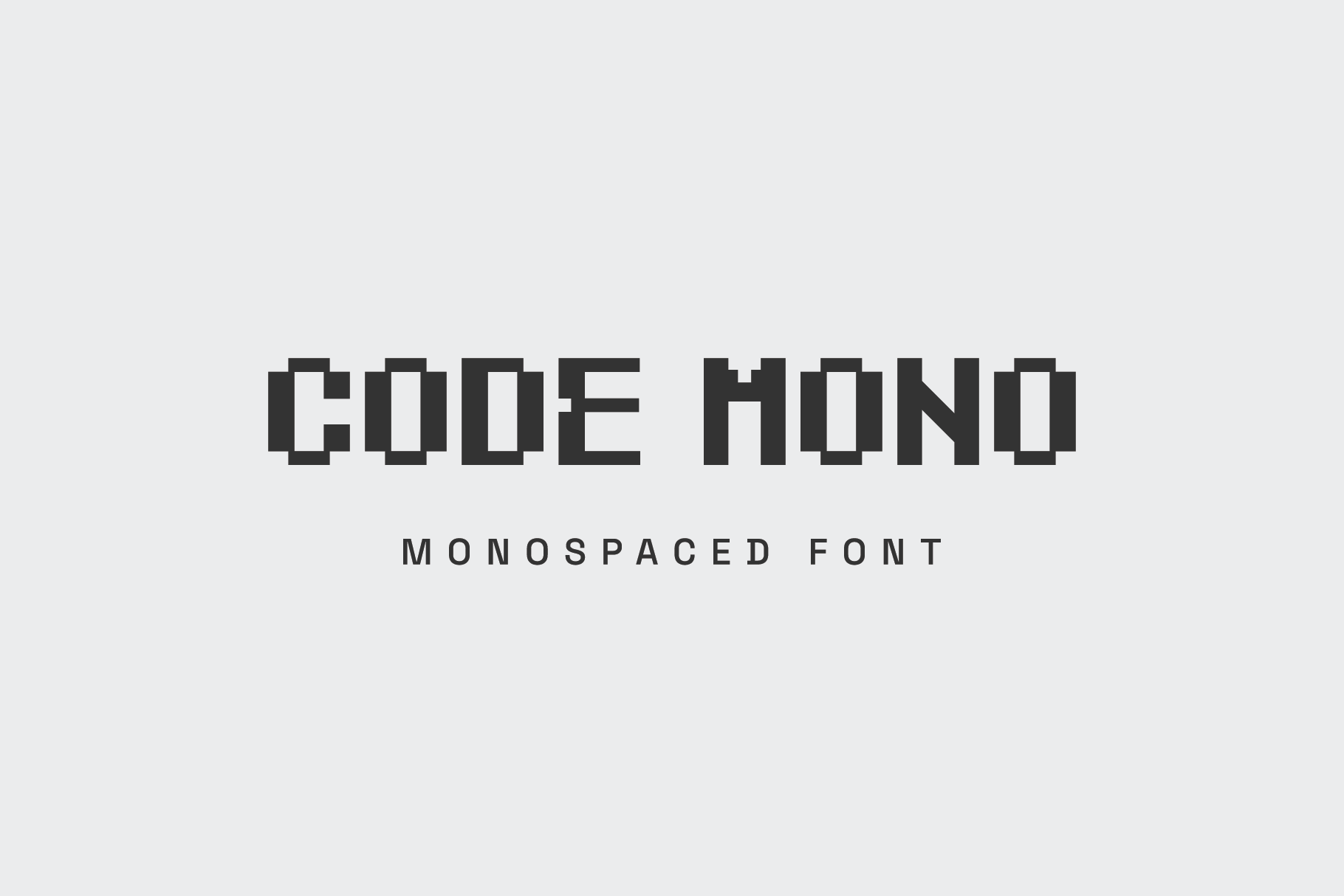
Code Mono-Bitmap Monospaced Font
Code Mono is a pixel-inspired font created with blocky shapes for a sharp and techy appearance. It is a display monospaced font suitable for titles, techy posters, headers, and futuristic digital and print designs. Code Mono is also a great font for branding, allowing you to design awesome wordmarks and logomarks with Code Mono. This pixel mono font is a great choice for every creative.